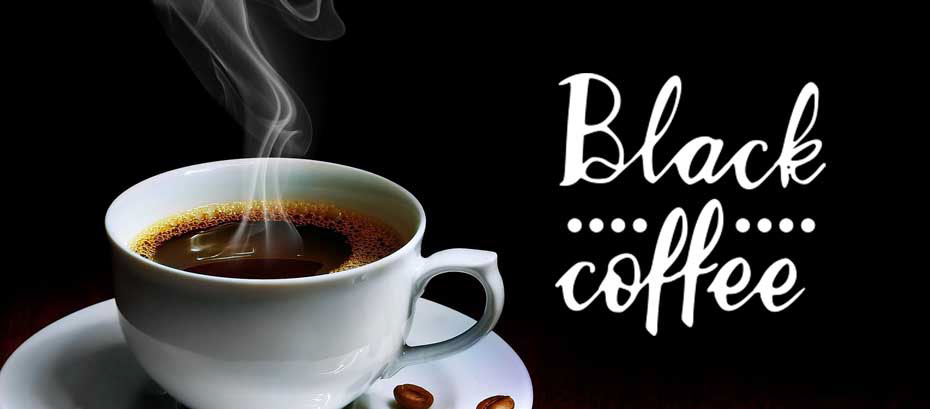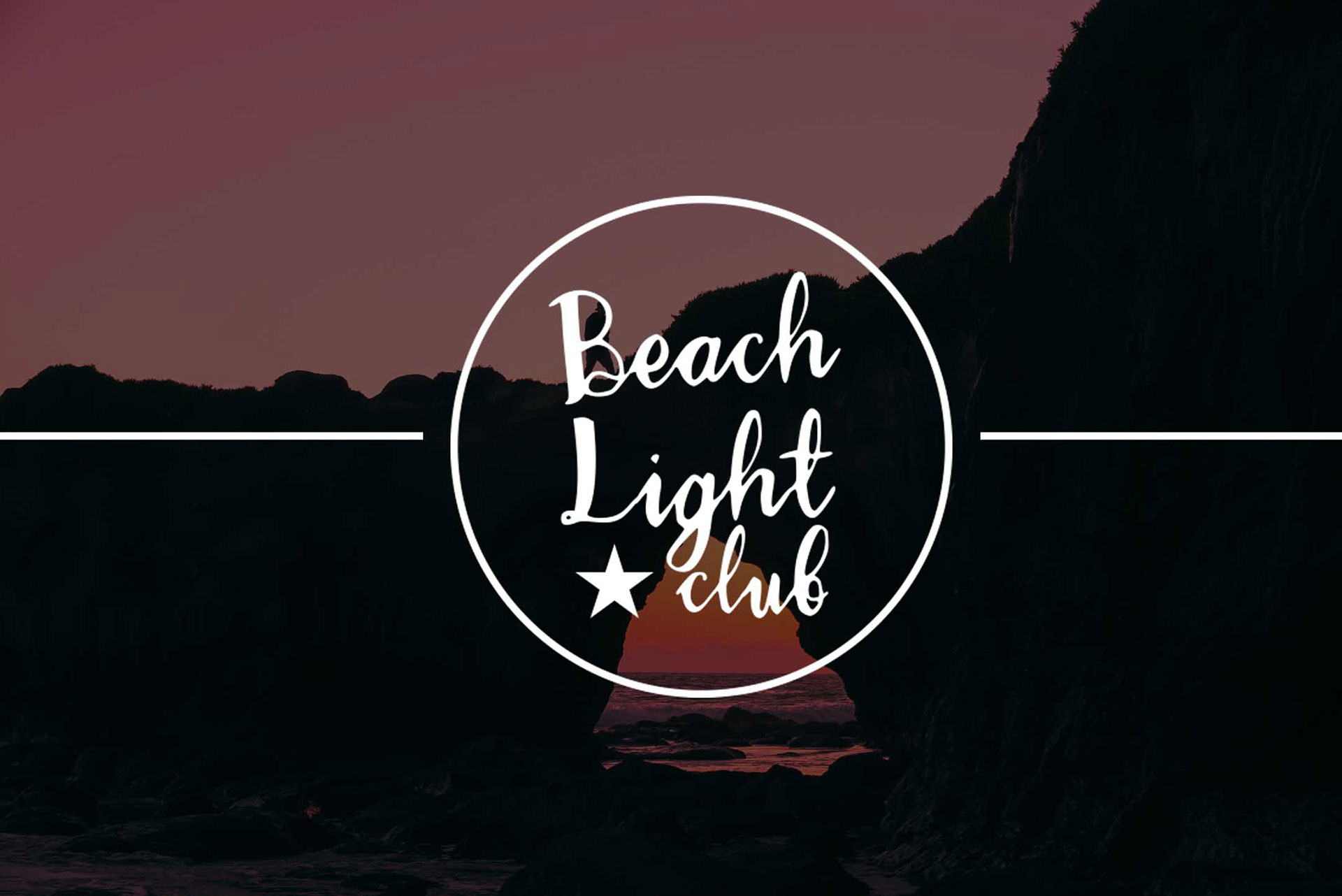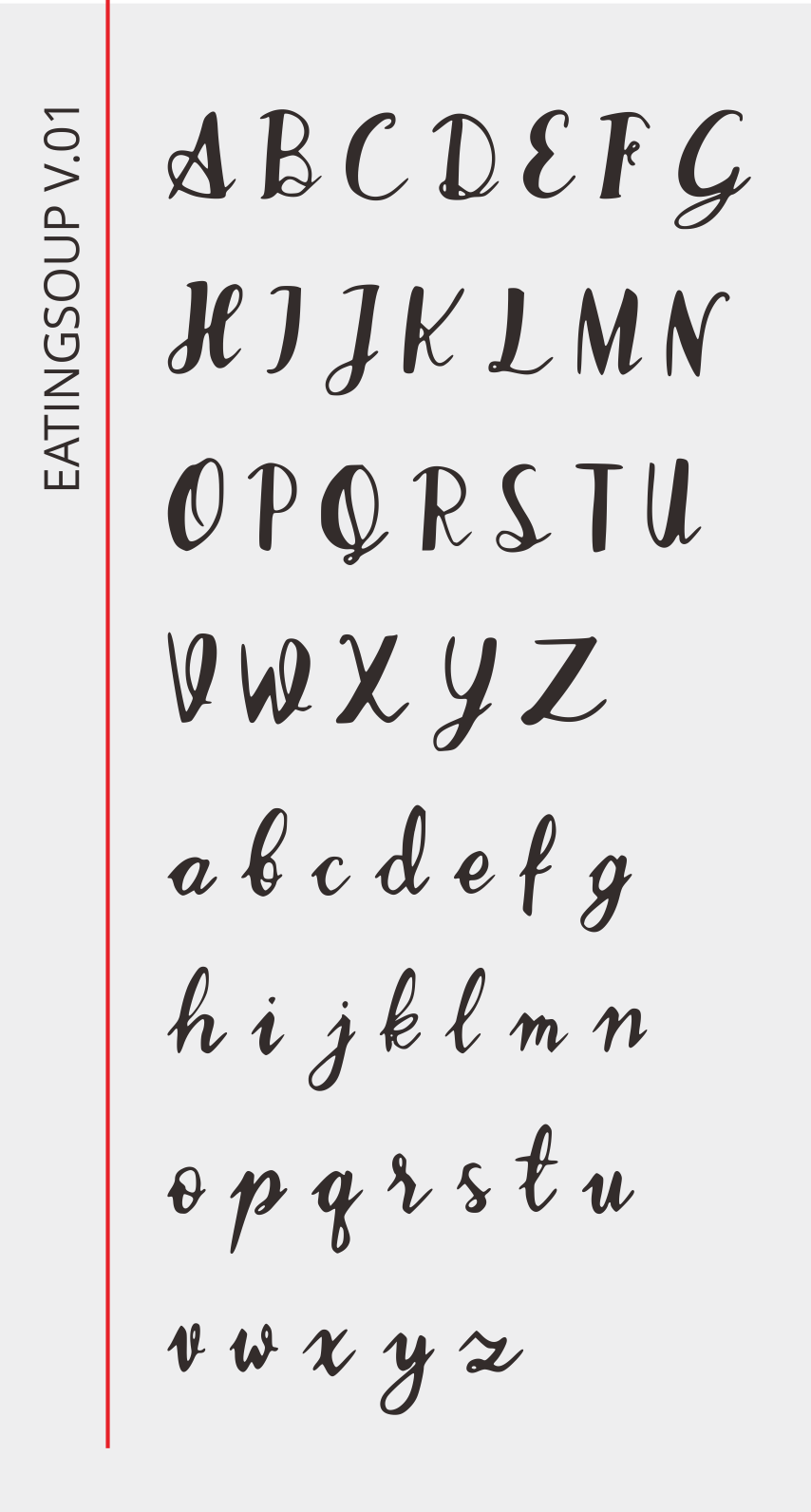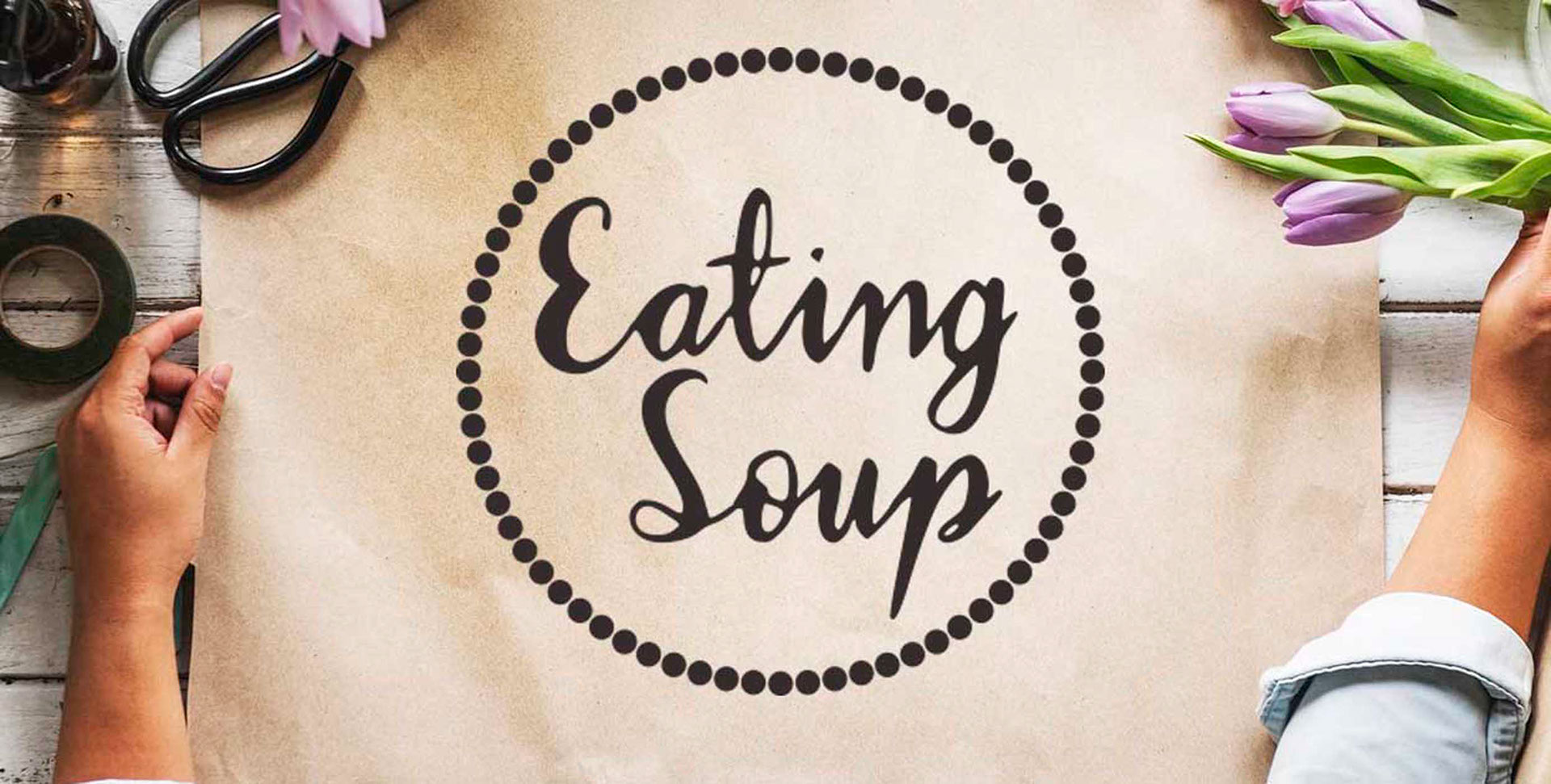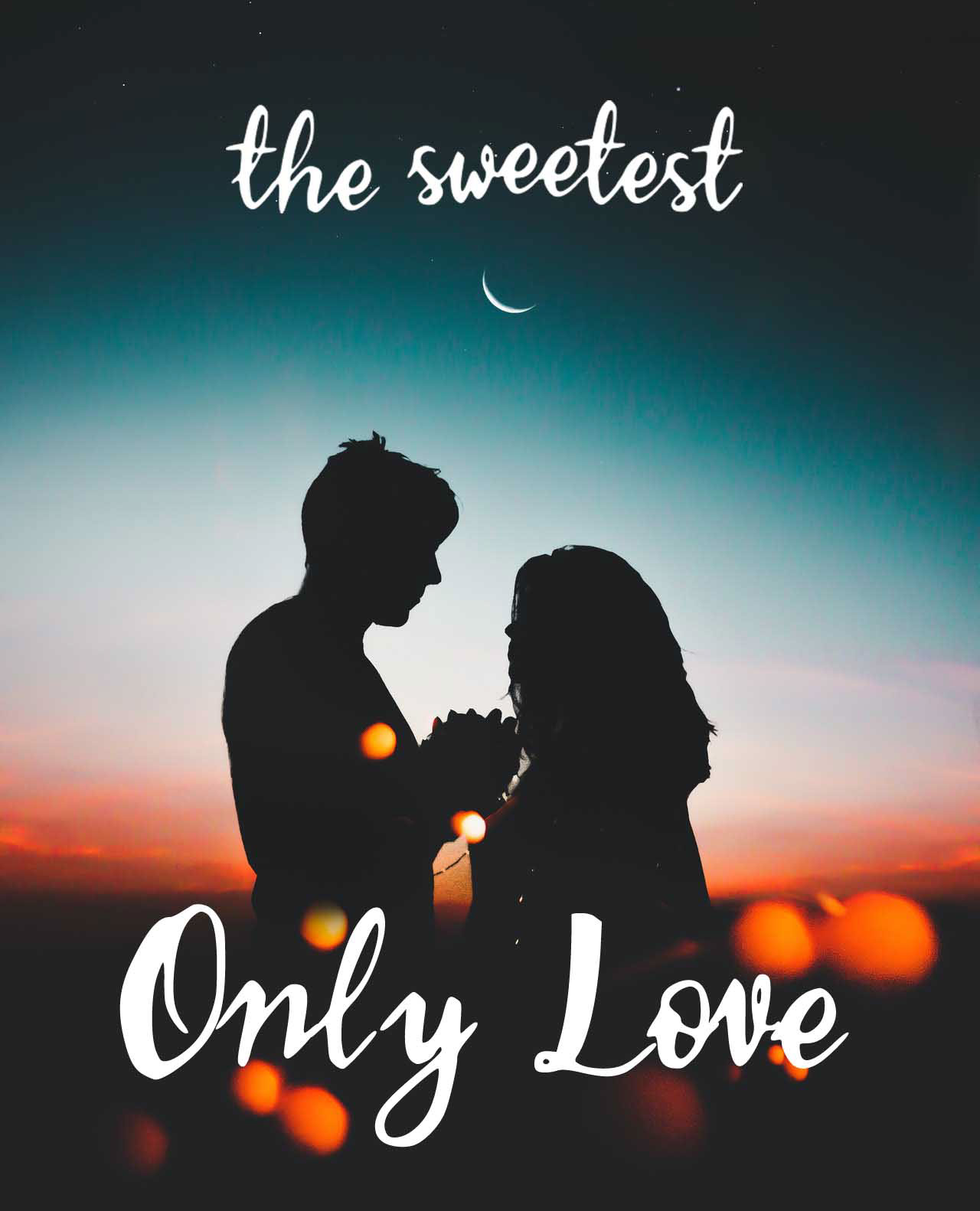
Eating Soup Font
Eating Soup is a hand drawn brush font. It contains uppercase, lowercase letters, numerals and symbols. This font suitable for badges, labels, social media posts, banners, quotes and other designs.